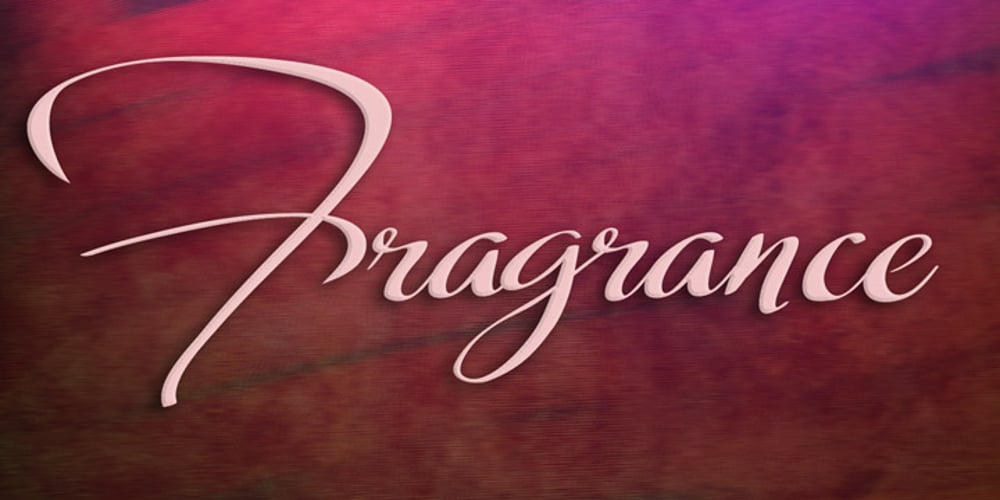
Fragrance Font Family was designed by Merle Scholtz and published by Scholtz Fonts. Fragrance contains 2 styles and family package options. Fragrance was inspired by script styles of the twentieth century, and brought into the early 21st century with extravagant, sweeping, upper-case letters and smaller “x” height. Fragrance Antique is a new style for the delicate, feminine Fragrance font. Fragrance Antique retains its elegance, but has a deconstructed, grunged appearance, making it perfect for “ancient” manuscripts, medieval wedding stationery, greeting cards and graffiti style advertising material. The font has a delicate, feminine style reminiscent of elusive perfumes, its elegance emphasized by the contrast between upper and lower case characters. Upper case swashes extend outwards, slashing across or underlining more demure lower case letters. Fragrance is perfect for wedding stationery, greeting cards, lingerie, flowers, perfume and cosmetic advertising, book covers and magazine pages. The font contains over 272 characters – (upper and lower case characters, punctuation, numerals, symbols and accented characters are present). It also includes “open-type”characters to enhance the flow of the text. It has all the accented characters used in the major European languages.